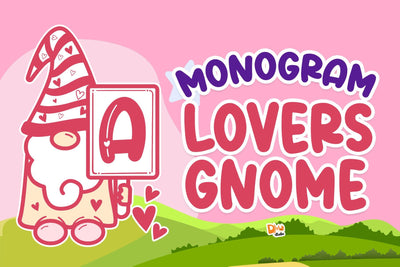
Monogram Lovers Gnome
Cute and adorable gnome monogram font with Love theme, great to celebrate your lovely days!
- All in caps
- Numeric
- Keyboard symbols ( empty )